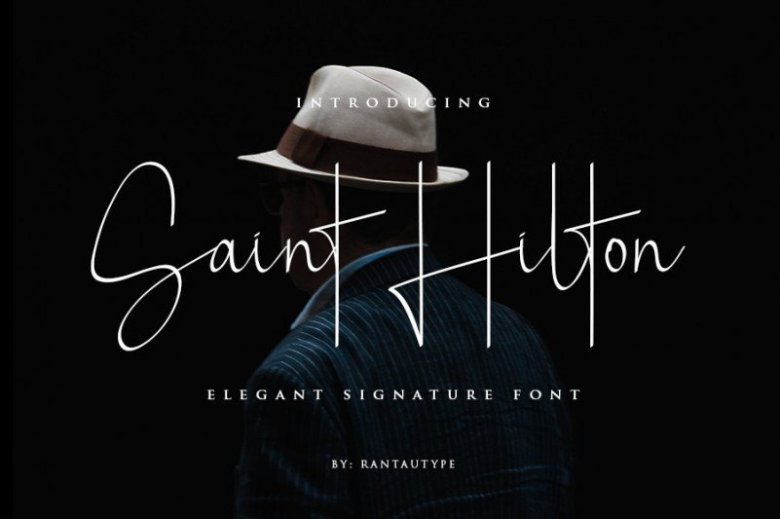
An elegant signature font. This is a new classy script stylish handwritten, classy and perfect for any awesome project that need hand writing taste.
Introducing Saint Hilton Font. It’s a stylish font with elegant scratch. It is perfect for branding ,wedding invitation and cards and for any other branding project
This is suitable for logos, watermarks on photography, signatures, branding, advertisement, quotes, invitations, stationery, wedding design,album covers, business cards, clothing, magazines, posters, and more!